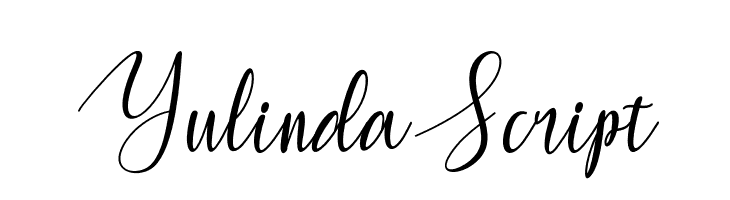
An elegant, flowing script font with smooth, continuous strokes and graceful curves.
An elegant, flowing script font with smooth, cursive strokes.
A sophisticated script font with elegant, flowing letterforms.
A graceful script font with flowing, decorative swashes and loops.
An elegant script font with flowing, cursive letters and intricate swashes.
An elegant script font with flowing, cursive letterforms and refined flourishes.
A lively cursive font with fluid, interconnected letterforms and a handwritten appearance.
A dynamic, expressive script font with a fluid, handwritten style.